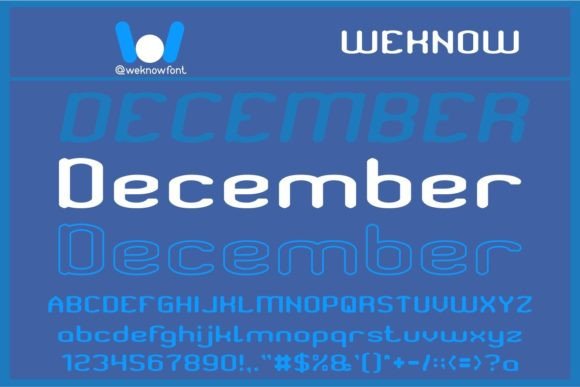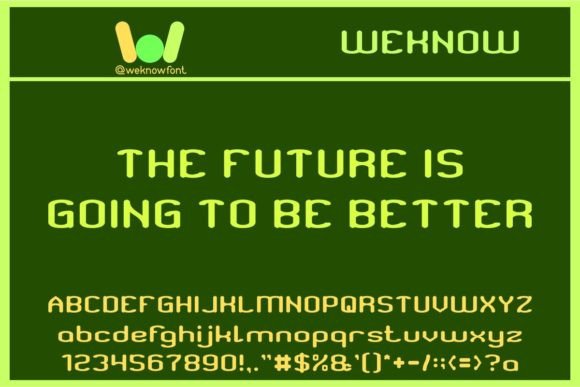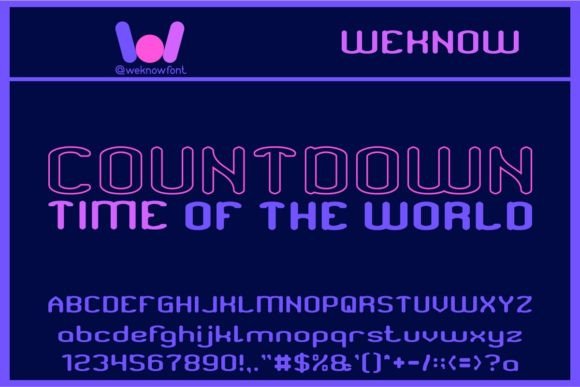
Introduction to Frequency Font
Imagine yourself lost in a futuristic cityscape, surrounded by neon lights and holographic advertisements. The soundtrack pulsates through the air, and the atmosphere is electric. Suddenly, a bold, glowing headline appears on a giant screen: “ECHO-1: The Next Generation.” That’s the kind of impact you can create with the Frequency Font, a cutting-edge display font designed to elevate your creative projects to the next level.
As a designer, you’re always on the lookout for the perfect font to give your work that extra oomph. That’s where Frequency Font comes in – a high-quality design resource that’s perfect for logos, logotypes, headlines, and more. Whether you’re working on a corporate identity, a music project, or a sci-fi movie, Frequency Font is the perfect tool to help you achieve your creative vision.
With its sleek, modern design and transparent background, Frequency Font is a versatile font that’s easy to work with and can be downloaded for free, making it an invaluable resource for any designer.
Key Features of Frequency Font
- High-quality design resource for creative projects: Frequency Font offers a unique and stylish font perfect for various design needs.
- Transparent background: This feature allows for easy layering and blending with other design elements, giving users more creative control.
- High-resolution design: The font is designed to be scalable, making it suitable for use in high-resolution designs, such as logos, posters, and billboards.
- Perfect for digital and print projects: Frequency Font’s versatility makes it ideal for use in both digital and print projects, from web design to brochures and business cards.
Honest Review: Frequency Font
As a designer, I’m always on the lookout for high-quality design resources to elevate my creative projects. Recently, I had the chance to try out the Frequency Font, and here’s my honest take.
What works well: ✨ The Frequency Font has a unique, futuristic aesthetic that adds a touch of sophistication to any design. The font is highly customizable, making it perfect for designers who want to add a personal touch to their projects. Additionally, the font is available for free download, making it an excellent resource for designers on a budget.
Some of the key features of the Frequency Font include:
- Transparent background, making it easy to overlay on images or videos
- High-quality design, perfect for use in print or digital media
However, there are a few limitations to the Frequency Font: ⚠️ The font can be quite bold, so it may not be suitable for all types of designs. Additionally, the font is not as versatile as some other design resources on the market.
Overall, I was impressed with the Frequency Font’s unique aesthetic and high-quality design. While it may not be the most versatile font, it’s definitely worth considering for designers looking to add a touch of futurism to their creative projects.
Frequency Font
Frequency Font is perfect for creative projects that require a unique and eye-catching design. Some common use cases include:
- Branding and logo design
- Infographics and data visualization
- Book covers and magazine layouts
Tips for Getting the Most Out of Frequency Font
To get the most out of Frequency Font, use it in conjunction with other high-quality design resources. Experiment with different font sizes, colors, and styles to create a unique and engaging design. You can also use Frequency Font in combination with transparent backgrounds to create stunning graphics and illustrations.